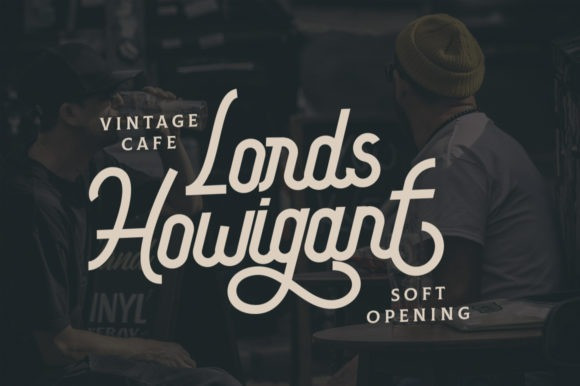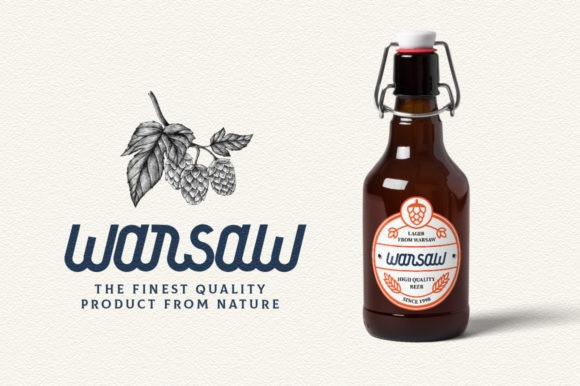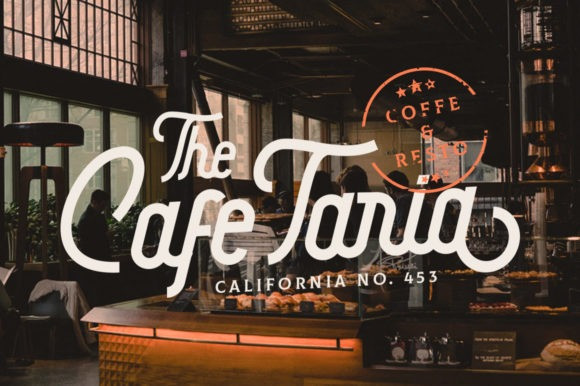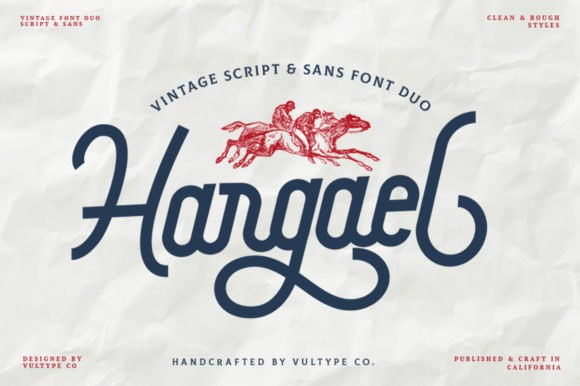
Hargael – Vintage Script Font
This is a vintage script font with sans and modern script font duo. With it, you can easily realize all your ideas. Introducing Hargael Font Duo. It’s a stunning font duo that contains a Script & Sans font. Its beautiful swashes are inspired by all things vintage. Hargael Vintage Script Font easily cooperating together and perfect for creating the traditional style logos, labels, package design, lettering for t-shirts and much others.